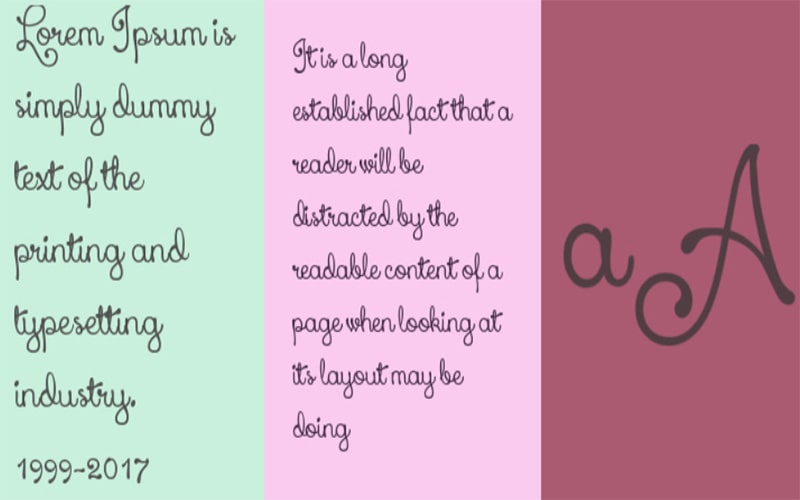
Xiomara Font is an elegant script and handwritten typeface. It is designed for advertisement, invitations, and branding. This stunning font was designed and released by Lauren Thompson.
The free font has come in only one style. As such, it has unique fonts and beautiful typographic designs in the typeface. Therefore, it is used by different designers in different fields and projects.
Practice this cool typeface to meet amazing design tasks like printing, fabric printing, special event cards, invitation cards, wedding cards, book covers, social media posters, and much more.
It would also be a good idea to use it for reference or other exhibition purposes. Due to its beautiful rounded strokes, that thing makes it different and unique from other fonts and can be found free on anchor font.
This is a new and modern typewriter with a carefully collected calligraphy style. It’s amazing to re-print, so it feels like regular handwriting and many designers are using it in their stylish designs.
With extensive language support, smart layouts, and great letterforms, it is considered one of the top-rated handwriting type phrases in the type design industry.
All of these characters have been really refined, with each design incorporating a beautiful touch where that beautiful font is used. So, I advised you, don’t miss any opportunity to start working with it.